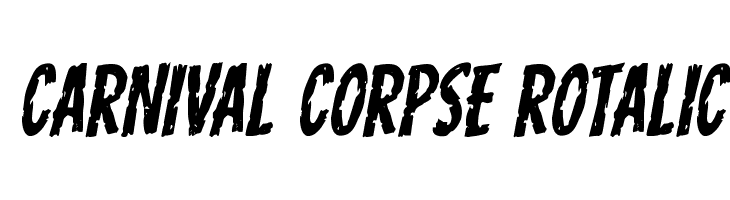
A bold, modern font with a unique striped pattern and rounded characters.
A cursive, handwritten font with elegant, flowing lines.
A bold, modern font with a textured, slightly condensed style.
A bold, jagged font with a horror-inspired, dripping effect.
A playful, handwritten-style font with bold, rounded characters.
A bold, playful script font with a dynamic and informal style.
A bold, pixelated font with a retro, arcade-inspired design.
A bold, playful font with wavy, lava lamp-inspired characters.
A bold, graffiti-inspired font with dynamic, hand-drawn characters.